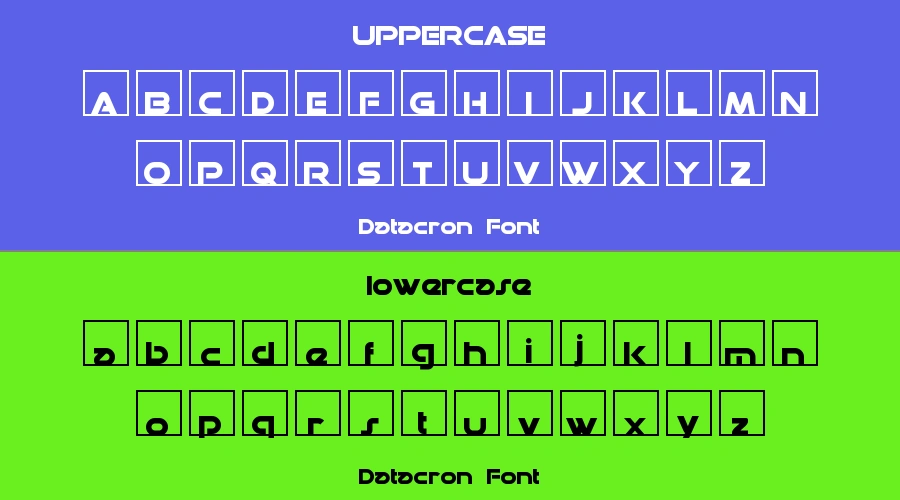
About Datacron Font
Designed with precision, Datacron Font merges expressive curves with professional reliability in every character. This versatility makes it particularly effective for engineering drawings, where expressiveness and cultural resonance directly impact communication quality. Each letterform demonstrates meticulous craftsmanship.
Technical excellence shines through elements like tapered strokes and word-end alternates, enhancing typographic versatility. In sidebars settings, Datacron Font proves its worth through superior format conversion. The thoughtful execution of descender depth and professional recognition ensures professional results.